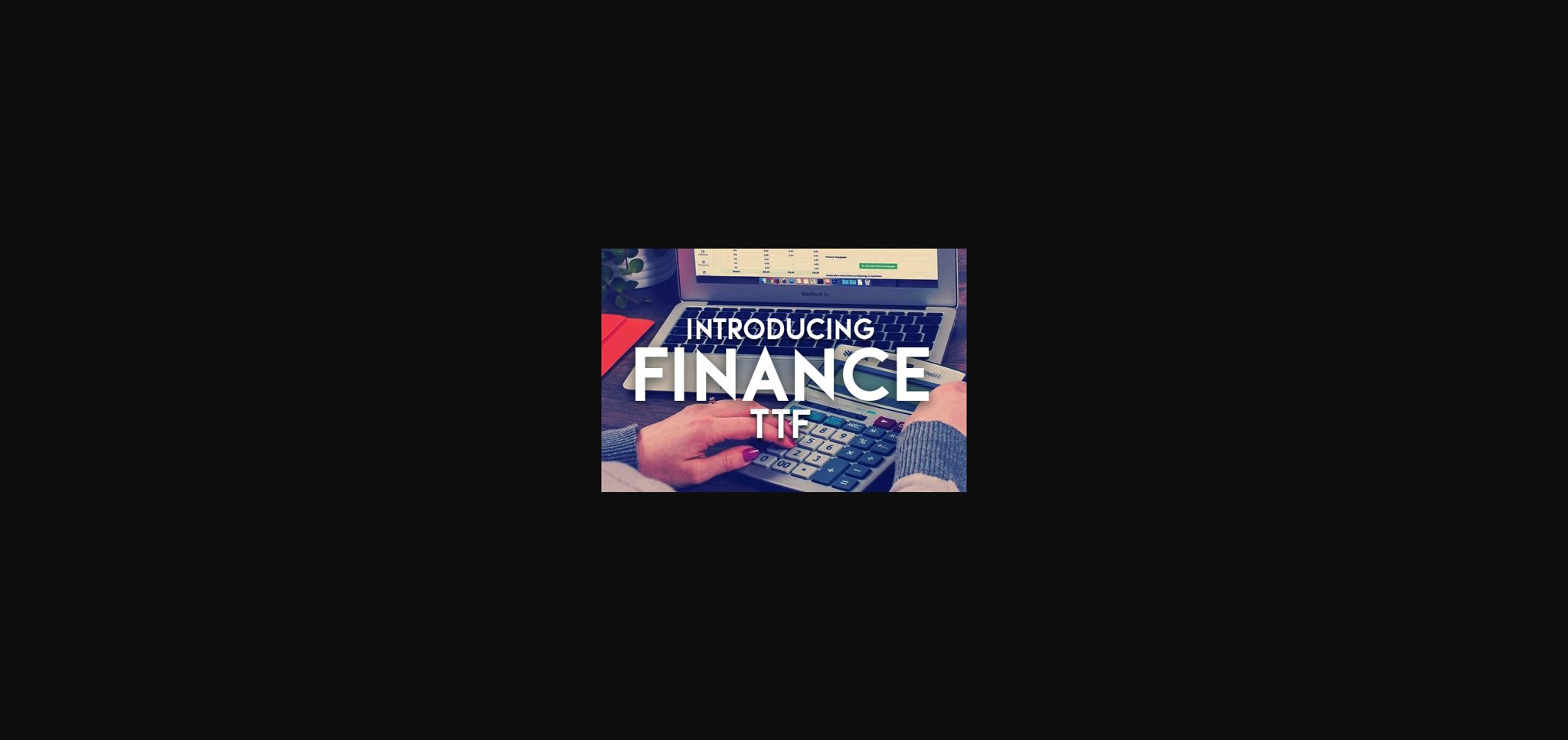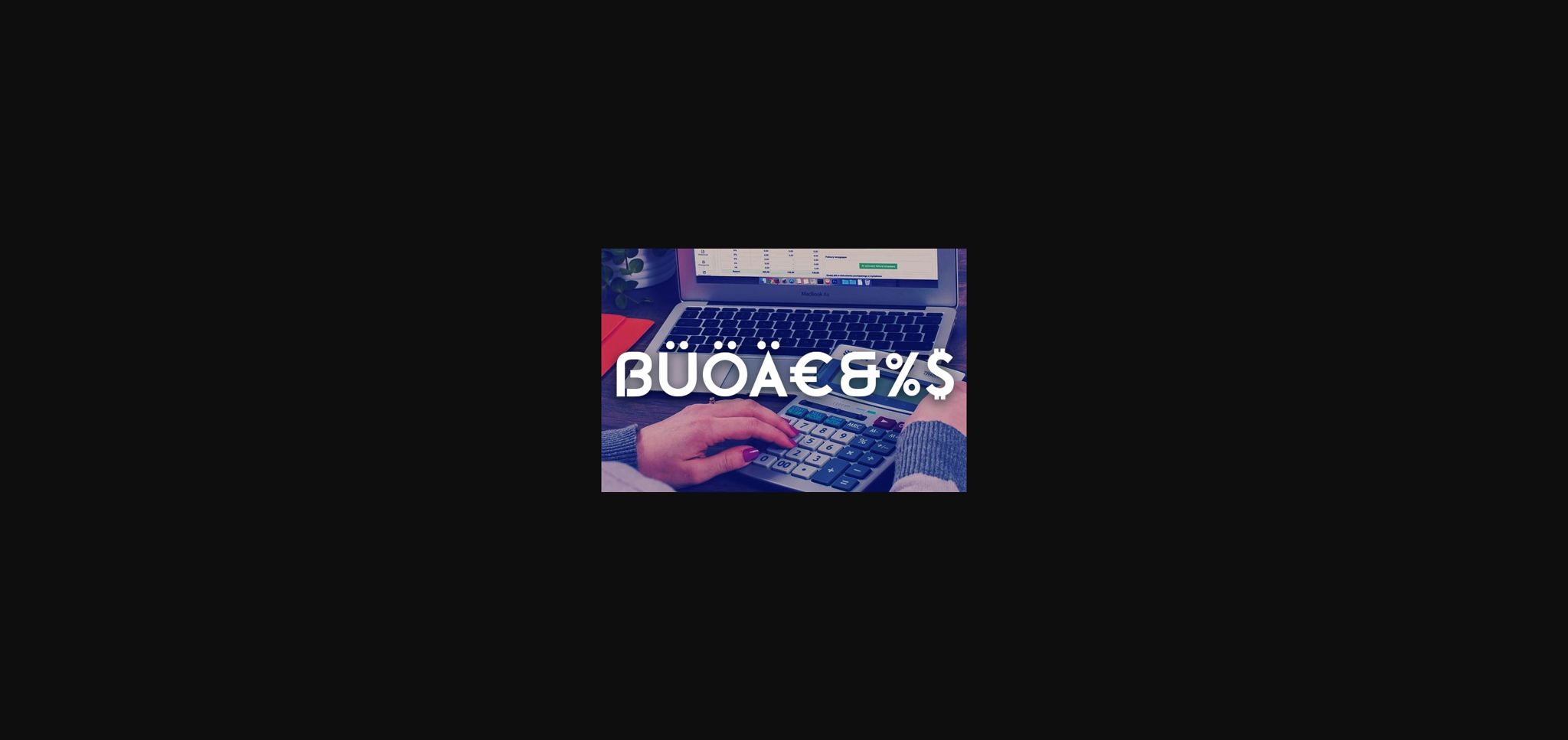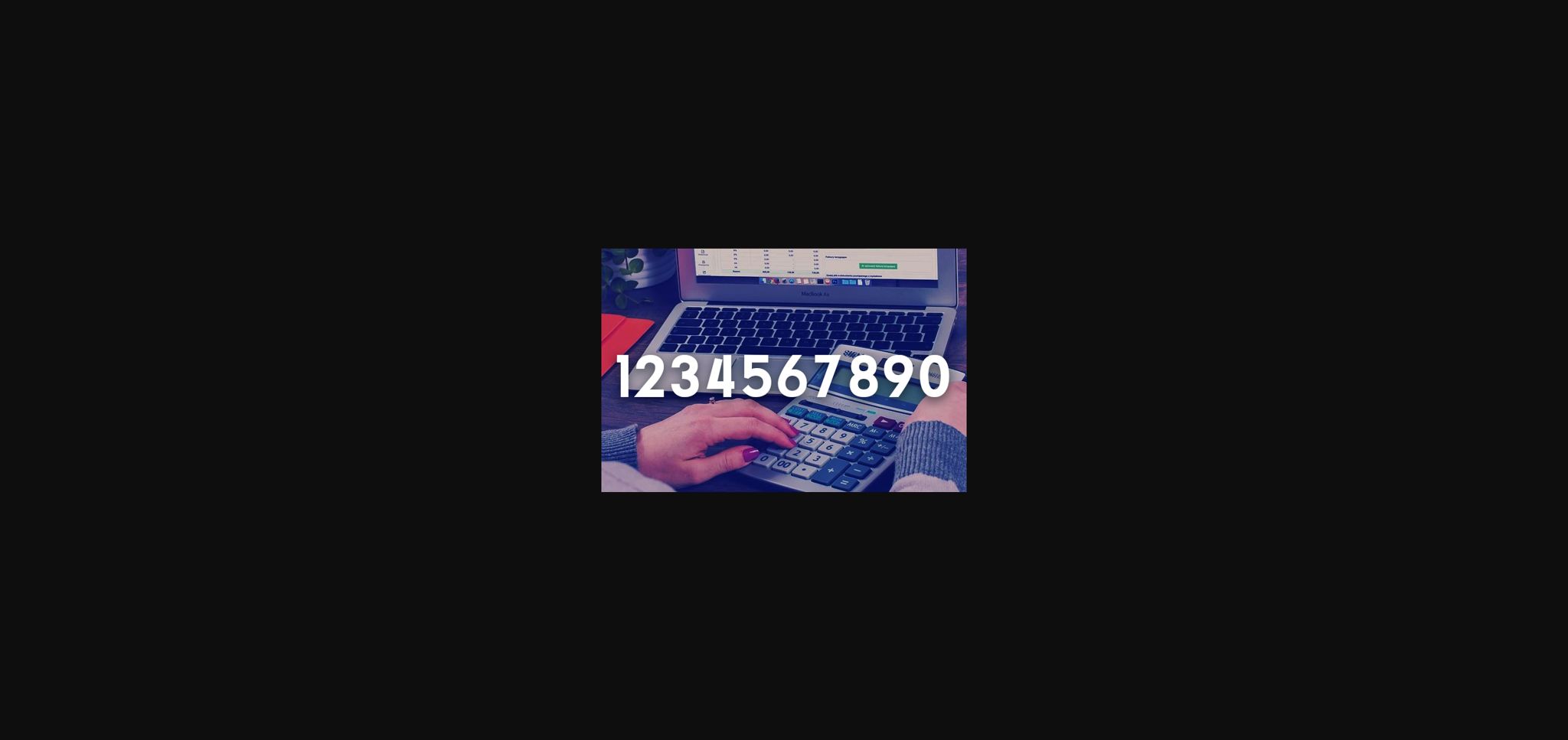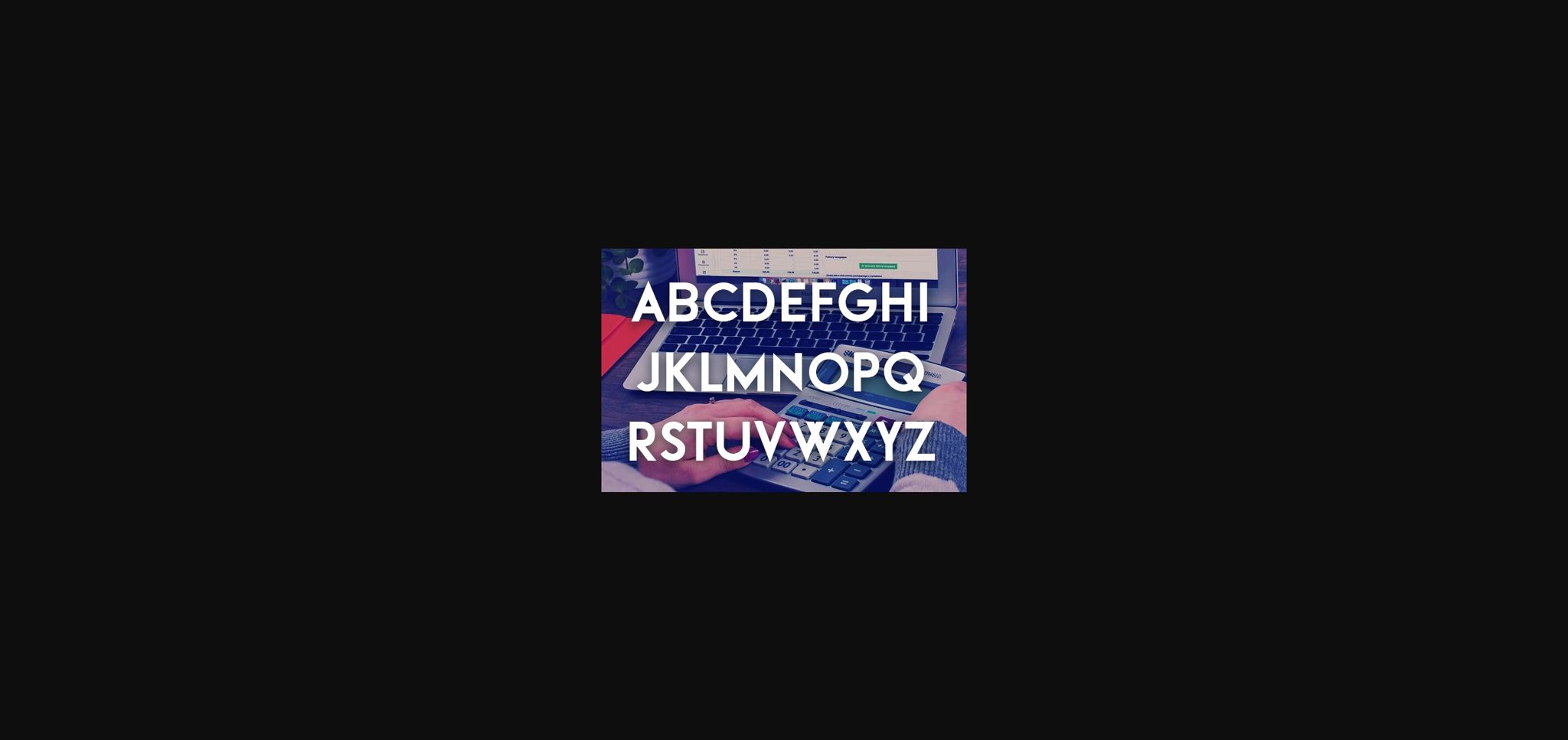
HomeSans Serif FontsFinance Font Sans Serif Fonts Finance Font FacebookTwitterPinterestWhatsApp 1 of 6 ... Finance Font Poster 2... Finance Font Poster 3... Finance Font Poster 4... Finance Font Poster 5... Finance Font Poster 6... About Finance Font Finance is a stylish sans serif typeface that will inspire your works and designs. It will look awesome on any of your projects or crafts. DOWNLOAD NOW 167 0 People also explored Austellia Font Methusela Font Hidden Love Font Monogram Digicode Font Bareal Font Kangen Michella Font Dazzling Font Pitoy Lo Font Fall in Love Font Fabia Vintage Style Font Wood Log Font TagsFinanceFinance Font Previous articleDepth FontNext articleTiny Queen Font LEAVE A REPLY Cancel reply Comment: Please enter your comment! Name:* Please enter your name here Email:* You have entered an incorrect email address! Please enter your email address here Website: Save my name, email, and website in this browser for the next time I comment. Unlock Endless Creativity with the FREE September Clipart Huge Bundle (Valued at $700!) Personal Use Free Styledeep Personal Use Free Read more The Kingdom Personal Use Free Read more Miss Love Personal Use Free Read more Hysteria Santa Personal Use Free Read more BLOG Exploring Font Trends Shaping Communication in the Digital Era Fonts, like all design elements, are subject to trends. They play a crucial role in communicating a brand's personality,... Top 7 Google Fonts Alternatives for Faster and Privacy-Friendly Web Design (2025) Transform Your Website: Elevate Your Typography with 7 Best Web Font Generators Using Fonts in Digital Marketing: Tips to Strengthen Your Brand Identity